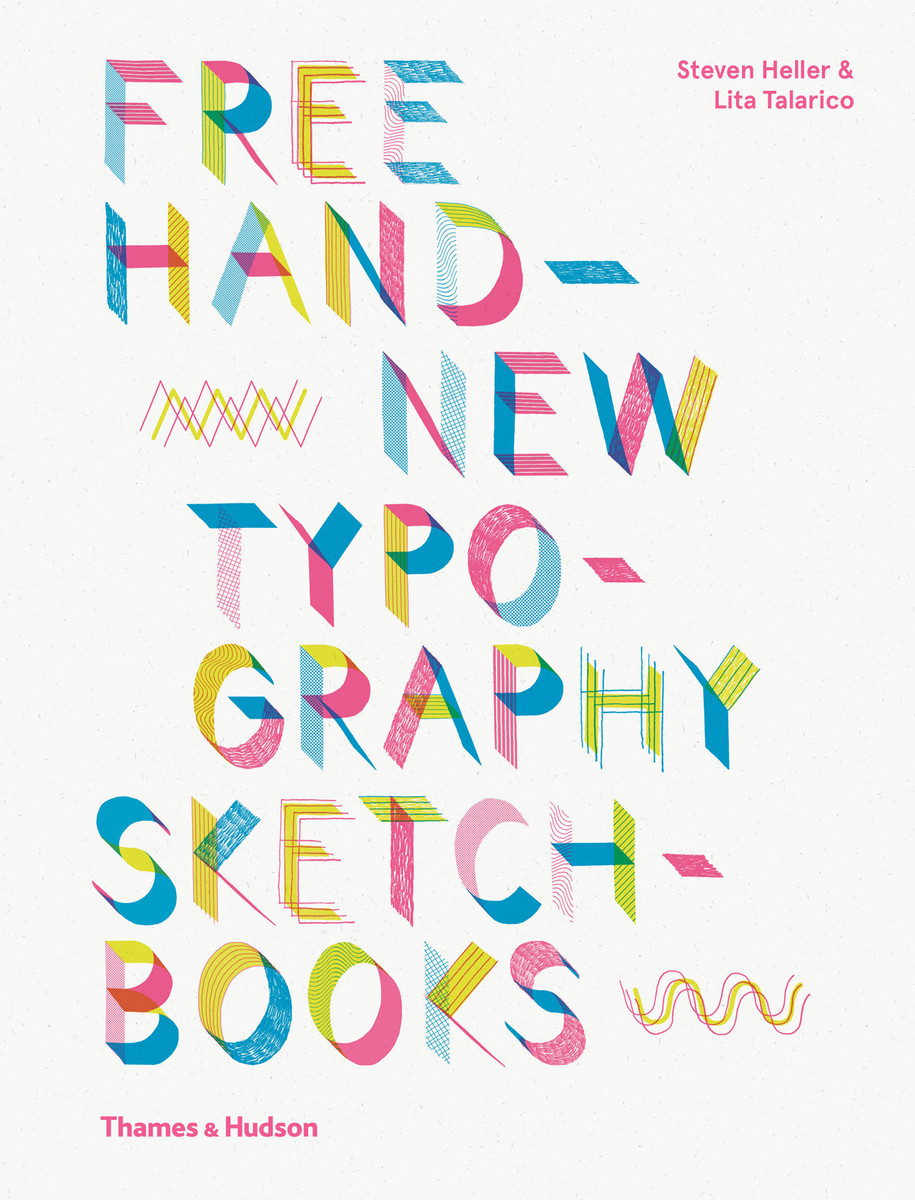
Free Hand New Typography Sketchbooks
Leaf through the personal sketchbooks of the most influential and inventive illustrators and typographers working today
Typography can embrace functions beyond the purely communicative. From type designers to expressive illustrators, each graphic designer has his or her own way of crafting or applying typefaces.
This show-all tour through leading graphic designers’ personal sketchbooks reveals the creative processes behind the creation of typefaces, word-images and logos. Arranged alphabetically by name, the world’s most exciting designers and typographers, including Philippe Apeloig, Ed Benguiat, Hoefler Type Foundry, Henrik Kubel, Toshi Omagari and Francesco Zorzi, present a staggering range of unique and exciting ways to communicate through letters and words. Sketchbook pages reveal the designers’ creative processes across diverse briefs, concepts, languages and alphabets, from Roman to Cyrillic to Arabic.
Aimed at all those who engage creatively with type, whether by hand or on screen, this rich compendium of typographic ideas stresses the importance of typographic thinking at a time when reading habits are evolving, while celebrating the varied and innovative ways that designers practise this time-honoured craft.